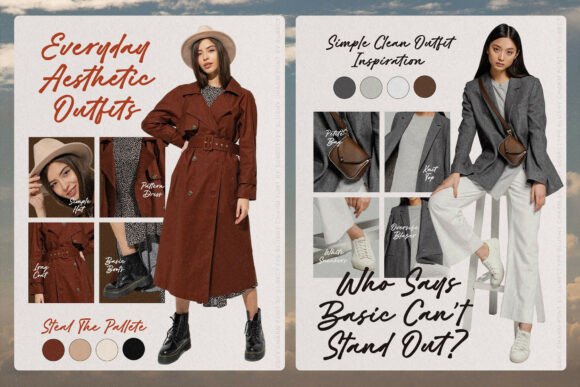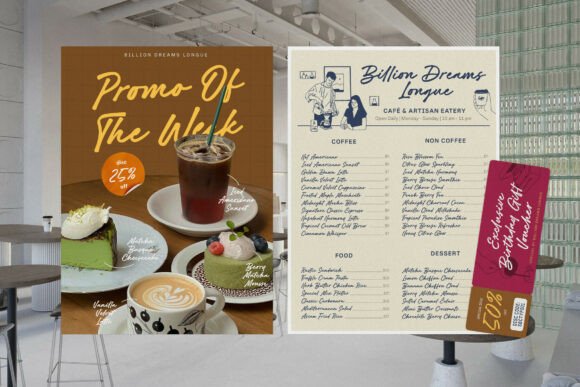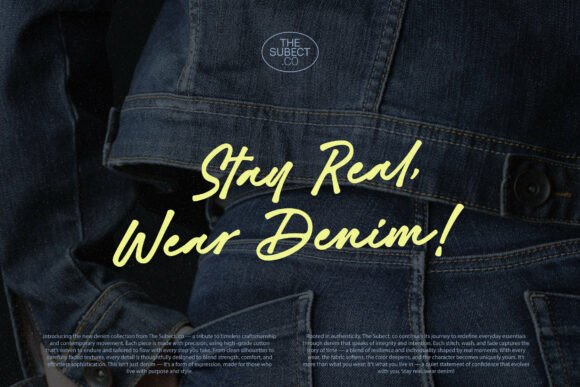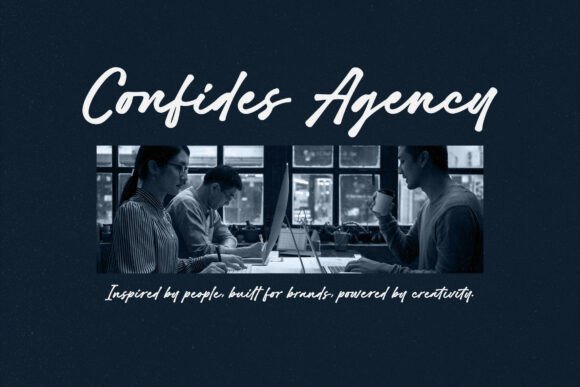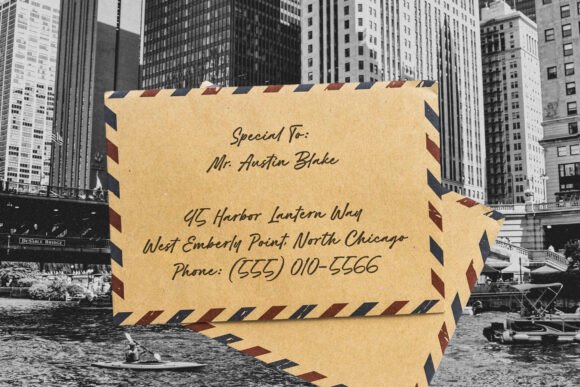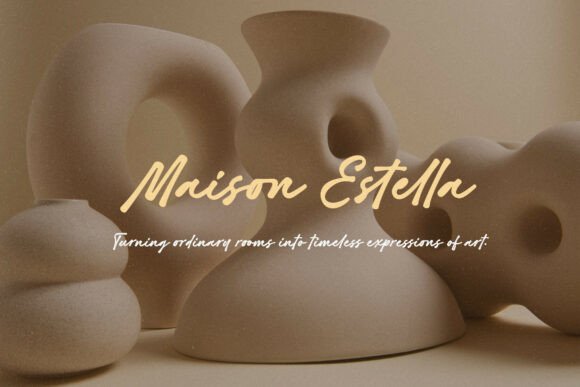
A Personal Touch in Every Letter
Who hasn’t been captivated by the unique charm of handwritten notes and messages? There’s something special about receiving a handwritten letter or a personalized card that adds a touch of warmth and personality to our interactions. For designers, capturing this essence in digital form can be a challenge, but what if you could infuse your designs with the same effortless beauty and personal charm of natural handwriting?
Enter Blushy Charm Font, a beautifully crafted handwritten typeface designed to bring a friendly, approachable feel to your designs. Whether you’re working on a branding project, creating packaging, or crafting wedding invitations, this font is the perfect tool to add a personal touch. With its smooth strokes and relaxed rhythm, Blushy Charm Font balances modern simplicity with classic warmth, making it a valuable addition to any designer’s toolkit.
Key Features of Blushy Charm Font
- Font Family: Blushy Charm Font is a unique, hand-drawn font with a romantic and whimsical feel.
- Unique Characteristics: Blushy Charm Font features intricate details, soft curves, and subtle texture, giving it a distinctive and charming appearance.
Blushy Charm Font Review
First off, I have to say that I’m a big fan of the whimsical and feminine vibe that Blushy Charm Font brings to the table. ✨ The font is perfect for creating a romantic and dreamy atmosphere, making it ideal for wedding invitations, baby announcements, or any other project that needs a touch of elegance.
- The font’s unique combination of bold and delicate lines creates a beautiful contrast that adds depth and visual interest.
- The rounded edges and soft curves give the font a friendly and approachable feel, making it perfect for personal projects or brands that want to connect with their audience on a more emotional level.
- The font’s versatility allows it to work well in both digital and print applications, making it a great choice for designers who need a reliable font for their projects.
However, there are a few limitations to consider: ⚠️ The font may not be the best choice for projects that require a lot of text or for use in small sizes, as the letterforms can become difficult to read. Additionally, the font’s delicate nature may make it prone to distortion or pixelation in certain digital applications.
Overall, I think Blushy Charm Font is a beautiful and unique font that can add a touch of magic to any project. While it may have some limitations, its strengths far outweigh its weaknesses, making it a great addition to any designer’s toolkit.
Tips for Getting the Most Out of Blushy Charm Font
Use the Blushy Charm Font for designs that require a touch of elegance and sophistication.
Combine it with pastel colors and delicate illustrations for a whimsical look.
The Blushy Charm Font is ideal for:
Baby shower invitations and decorations
Food and lifestyle blog headers and titles